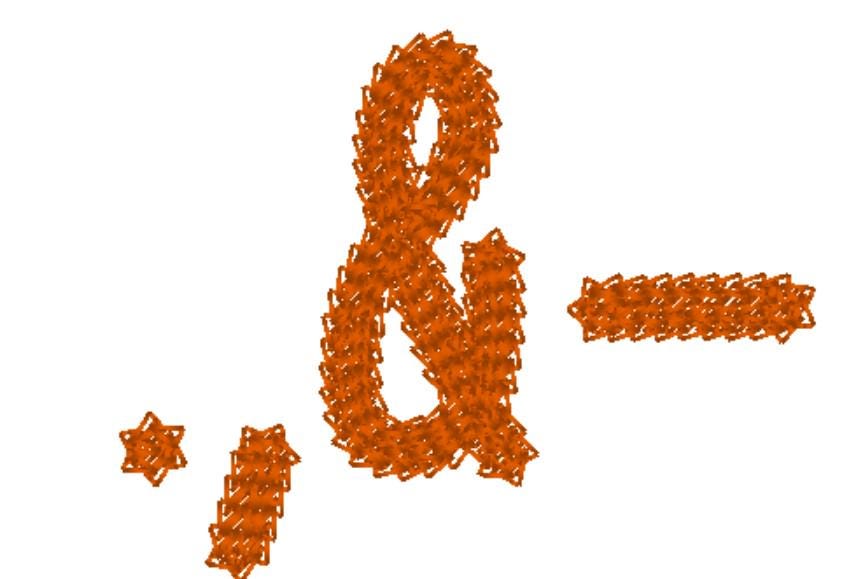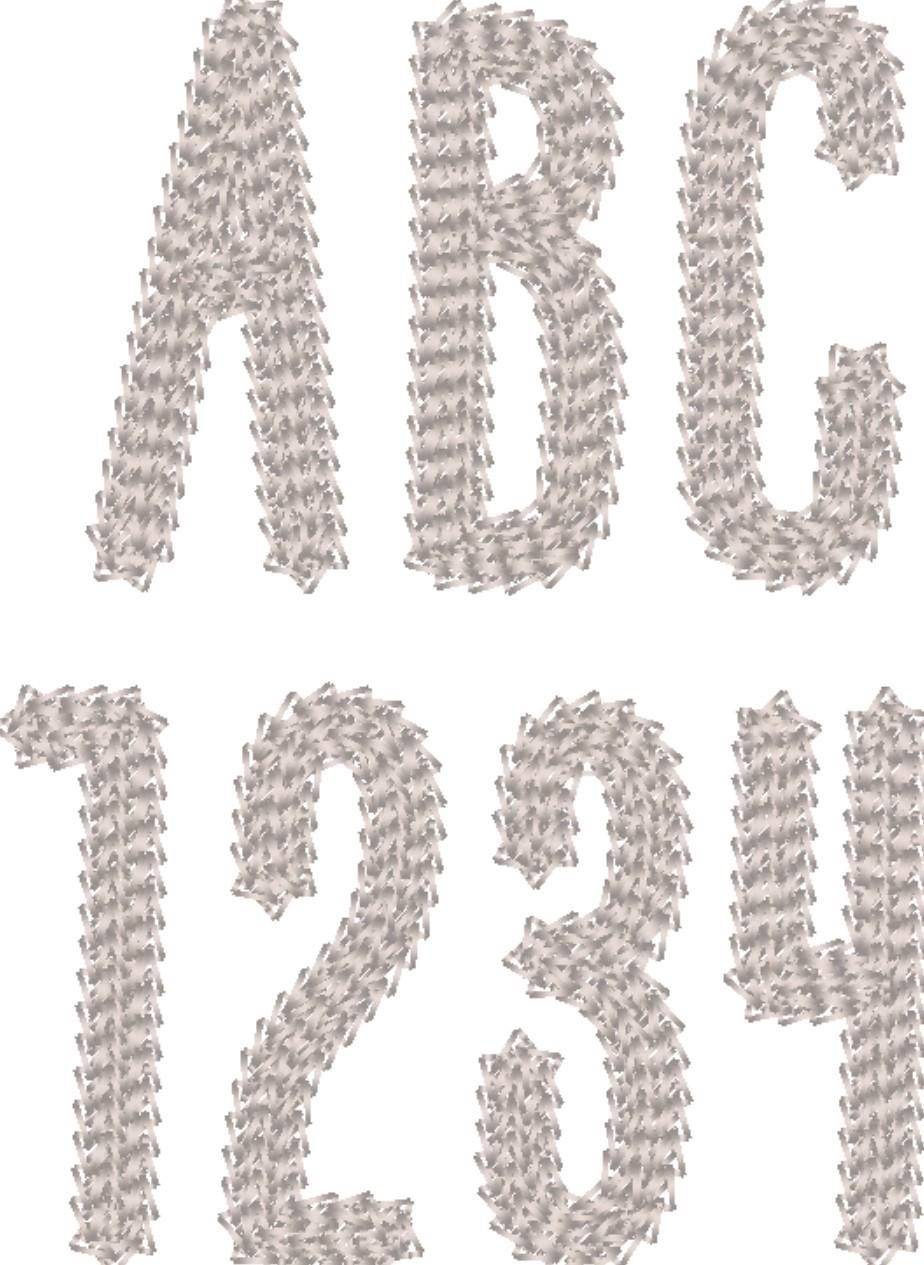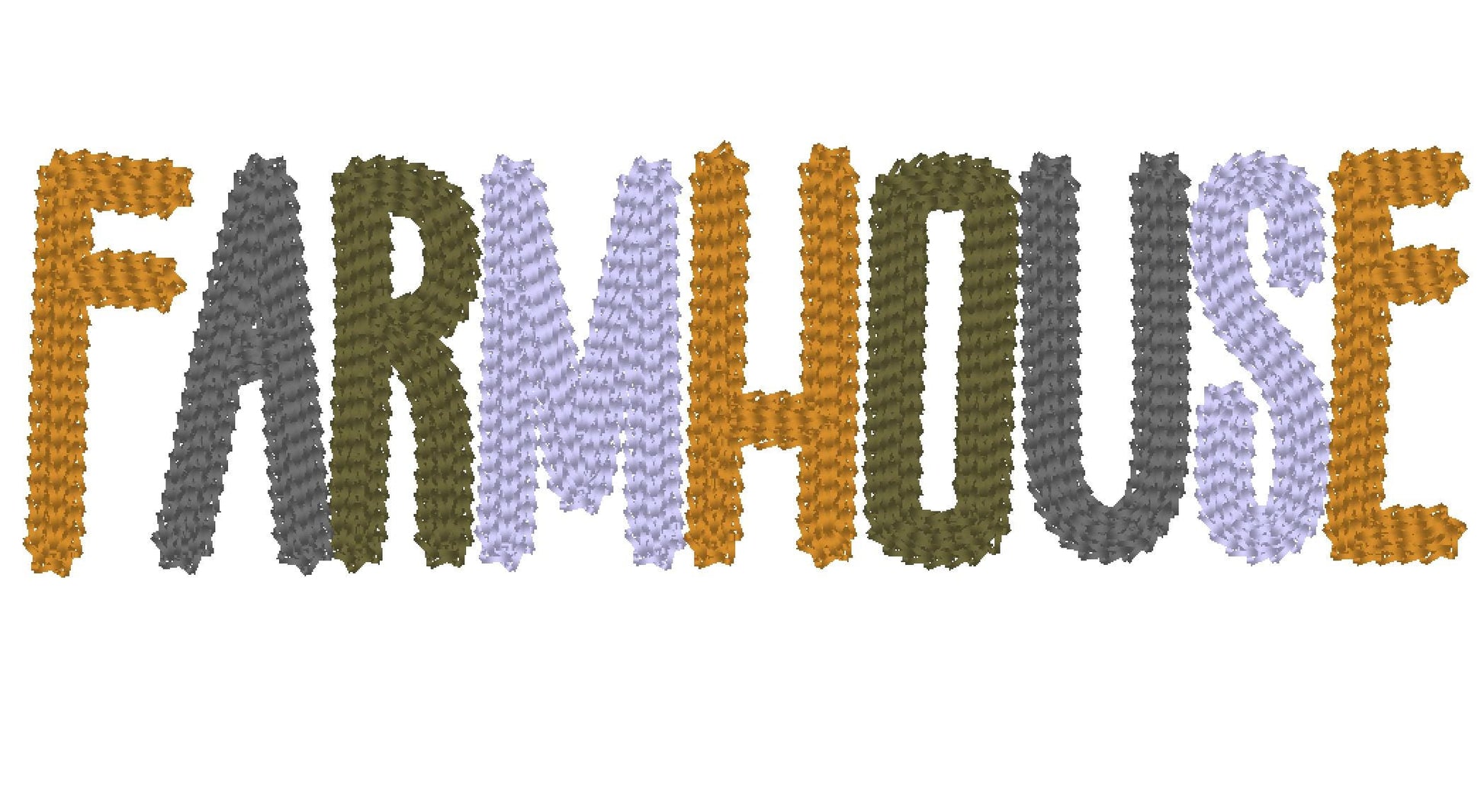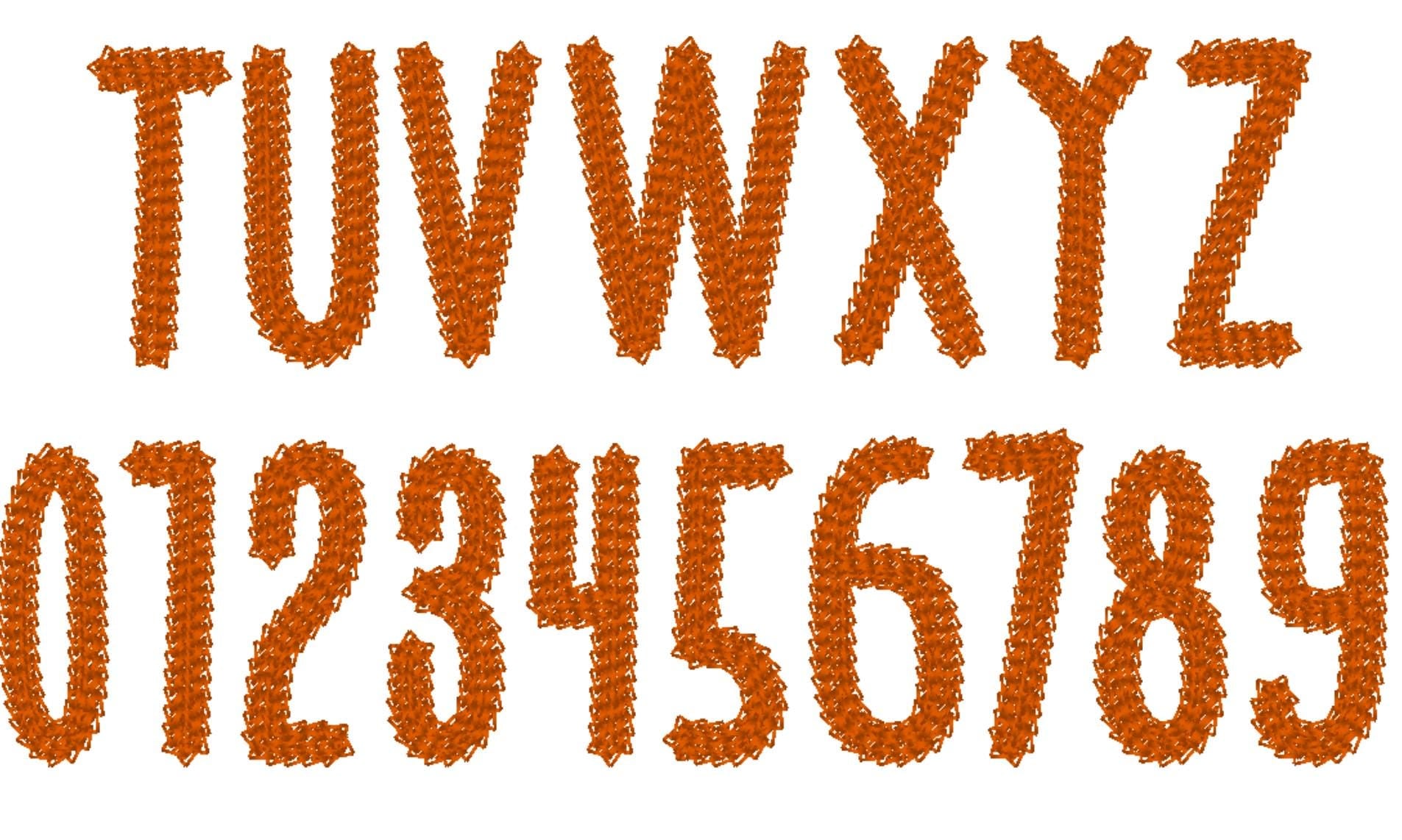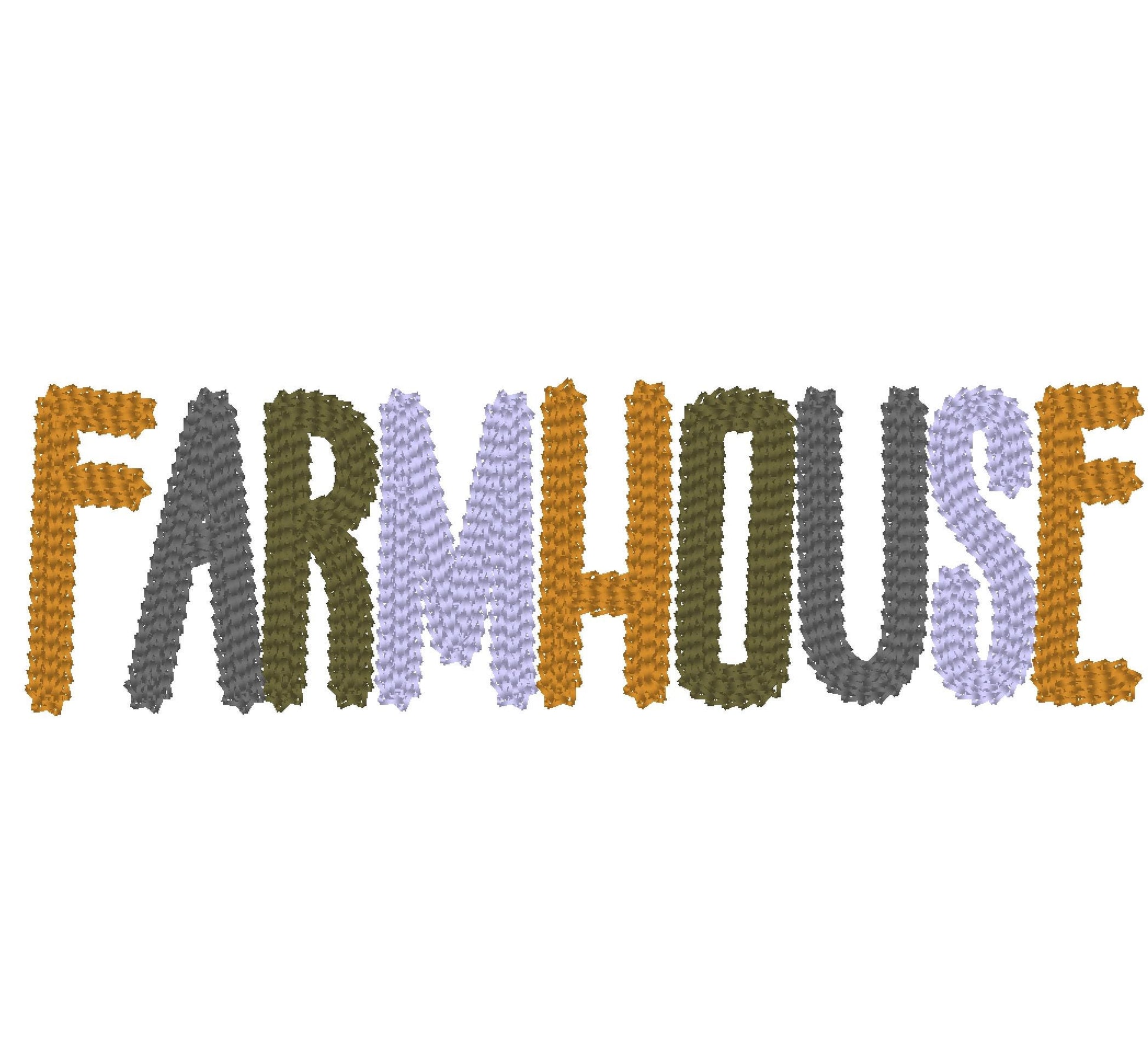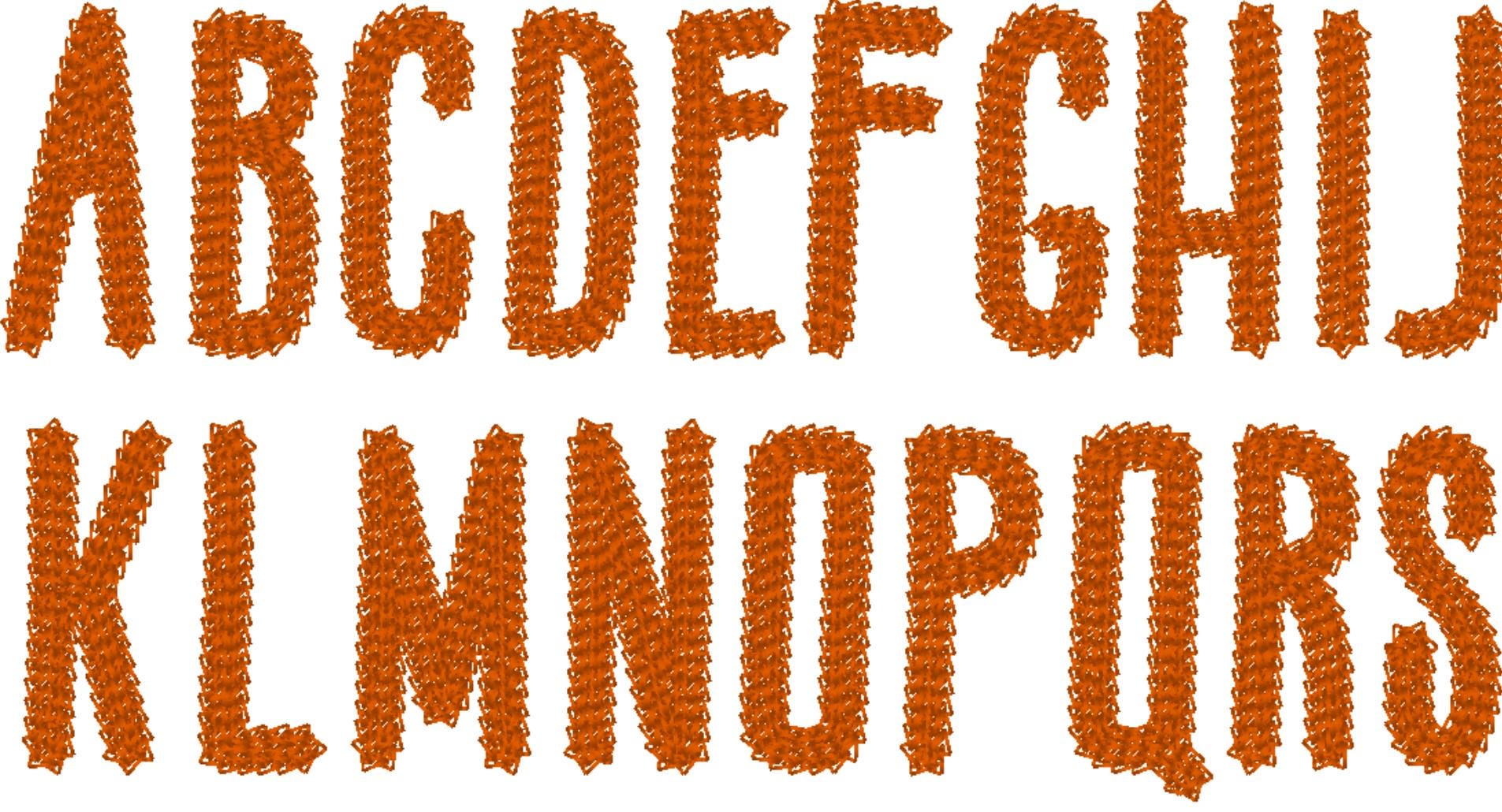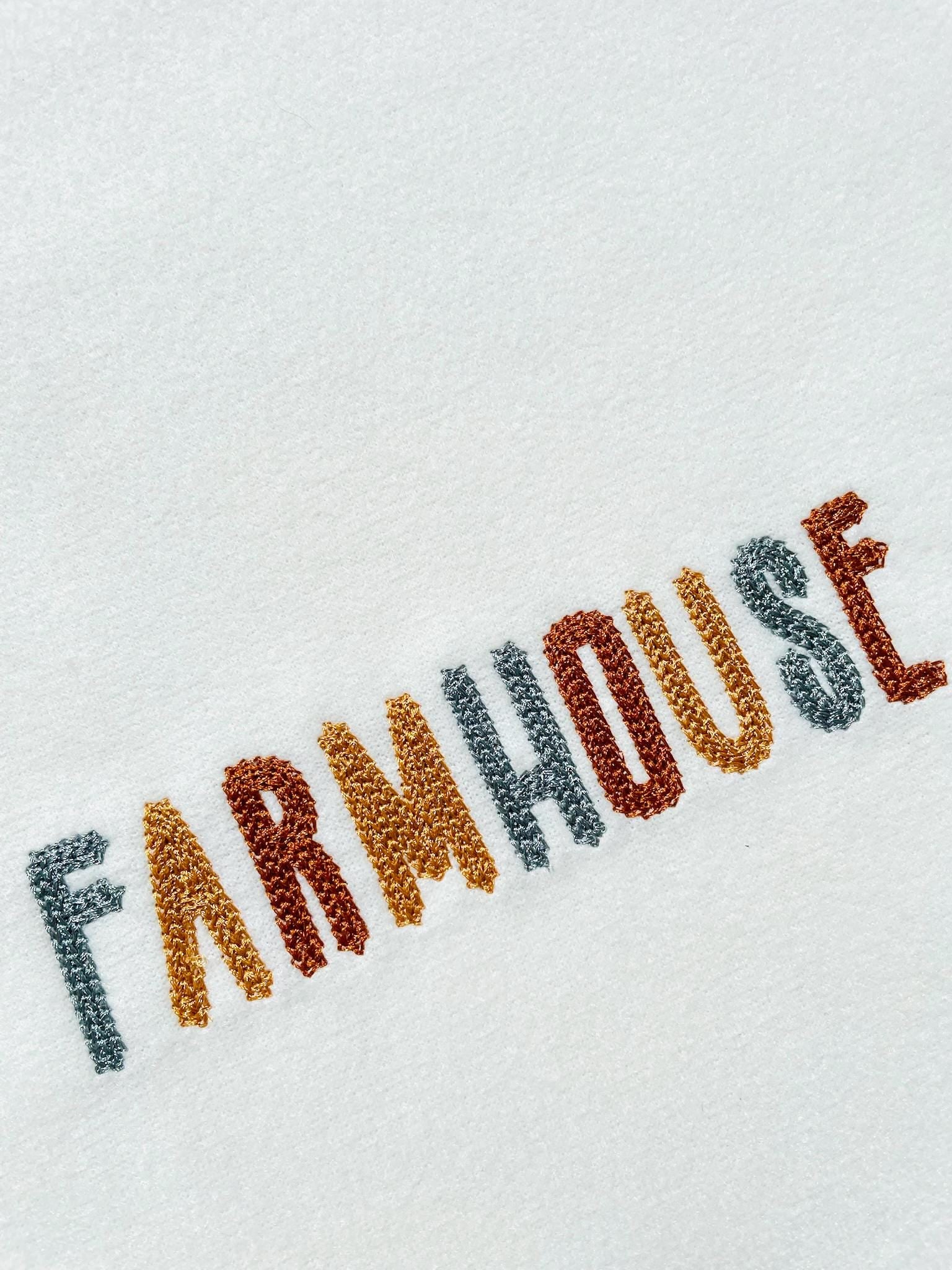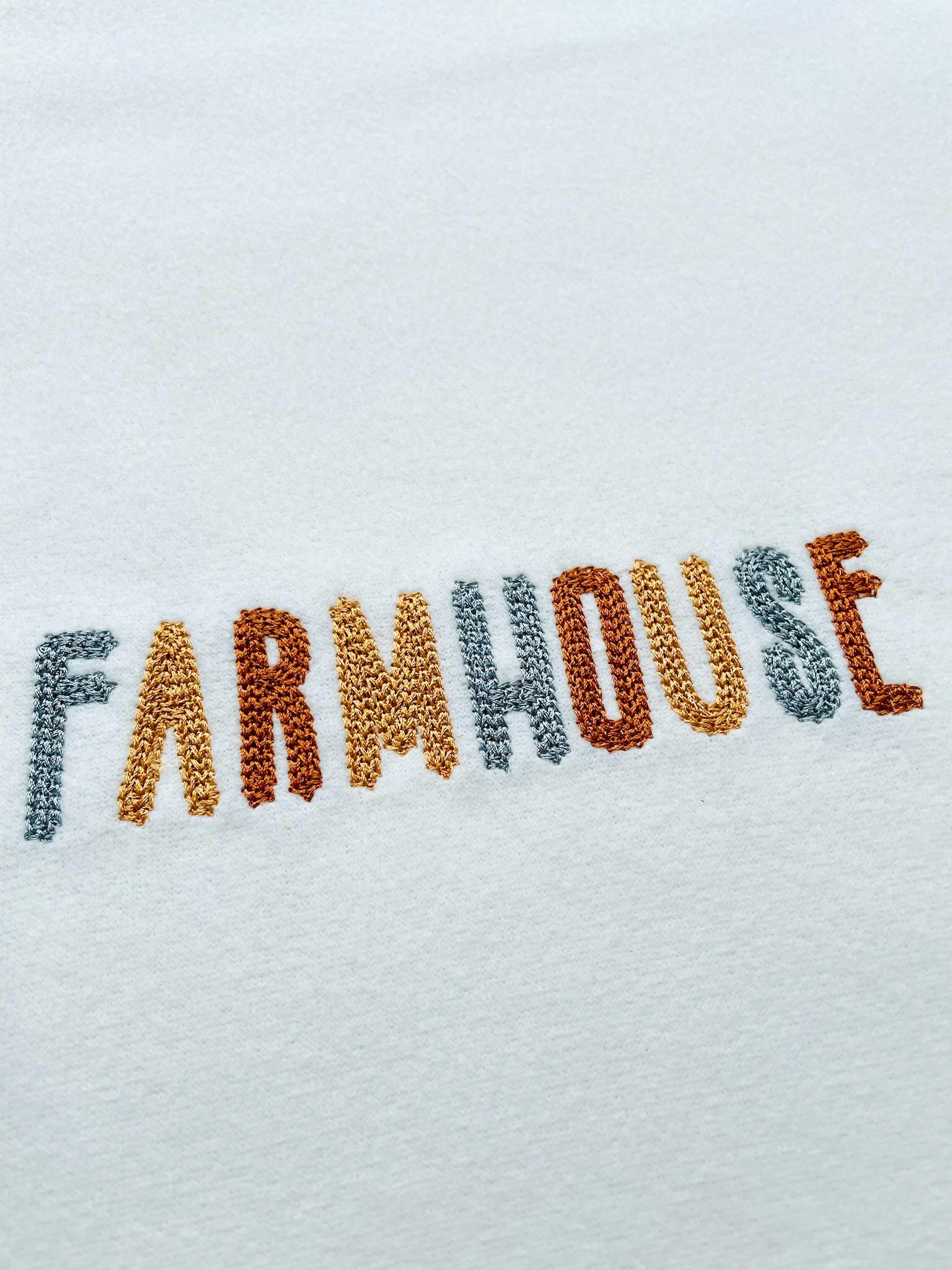
Perfect Light Fill Chain Font Hand Stitch Effect
Or click to open the linkA mini chain block font with a light fill and a hand-stitched look that stitches cleanly without puckering. Cute for names, sleeves and labels.
Uppercase letters A to Z, numbers 0 to 9 and the signs & , - . in four sizes: 1.4, 1.8, 2.2 and 2.7 inches.
- Light fill chain block font, hand stitch look
- Uppercase A-Z, numbers 0-9, punctuation
- 4 sizes, 1.4 to 2.7 in